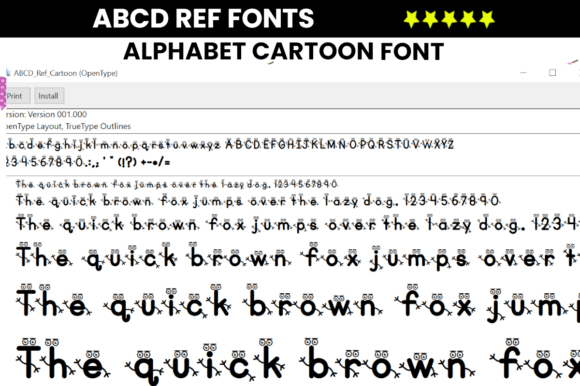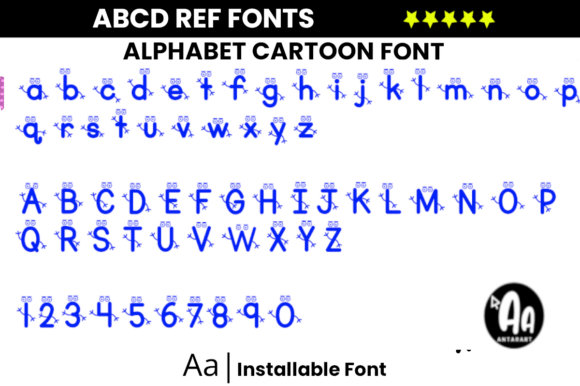
Introducing the Alphabet Cartoon Font: A Fun and Engaging Way to Teach Young Learners
Are you a teacher, designer, or crafter looking for a creative way to bring your alphabet activities to life? Look no further than the Alphabet Cartoon Font! This delightful font features cartoon letters with expressive eyes, playful arms, and cheerful gestures that are sure to capture the attention of young learners. In this article, we’ll explore the many uses of the Alphabet Cartoon Font and how it can enhance your teaching and learning materials.
What is the Alphabet Cartoon Font?
The Alphabet Cartoon Font is a unique and engaging font designed specifically for educational purposes. Each letter of the alphabet is illustrated with a cartoon character, complete with expressive eyes, playful arms, and cheerful gestures. The font is perfect for creating fun and interactive learning materials that will keep young learners engaged and motivated.
Uses for the Alphabet Cartoon Font
The Alphabet Cartoon Font is incredibly versatile and can be used in a variety of educational settings. Here are some ideas to get you started:
- Classroom Posters & Bulletin Boards: Create eye-catching posters and bulletin boards that showcase the alphabet in a fun and engaging way. Use the Alphabet Cartoon Font to highlight key letters and words, and add colorful illustrations to make your display stand out.
- Phonics Activities & Flashcards: Use the Alphabet Cartoon Font to create phonics activities and flashcards that will help young learners develop their reading skills. The font’s playful illustrations will make learning fun and interactive.
- Preschool and Kindergarten Worksheets: Add a touch of whimsy to your preschool and kindergarten worksheets with the Alphabet Cartoon Font. Create engaging activity sheets that feature cartoon letters and characters, and watch your students’ excitement grow.
- Alphabet Games & Early Literacy Centers: Develop alphabet games and early literacy centers that will keep young learners engaged and motivated. Use the Alphabet Cartoon Font to create interactive games, puzzles, and activities that focus on letter recognition and phonics.
- Digital Learning Resources and Presentations: Take your digital learning resources and presentations to the next level with the Alphabet Cartoon Font. Create engaging video tutorials, interactive slides, and multimedia presentations that feature the font’s playful illustrations.
Benefits of Using the Alphabet Cartoon Font
The Alphabet Cartoon Font offers a range of benefits for teachers, designers, and crafters. Here are just a few:
- Engages Young Learners: The font’s playful illustrations and cheerful gestures are designed to capture the attention of young learners and keep them engaged.
- Develops Literacy Skills: The Alphabet Cartoon Font is perfect for teaching letter recognition, phonics, and early literacy skills.
- Encourages Creativity: The font’s unique illustrations inspire creativity and imagination, making it perfect for art projects, writing activities, and more.
Tips for Using the Alphabet Cartoon Font
Here are some tips for getting the most out of the Alphabet Cartoon Font:
- Experiment with Colors: Use a range of colors to bring your creations to life and make them more engaging.
- Add Illustrations: Add your own illustrations and graphics to complement the font’s playful illustrations.
- Mix and Match: Mix and match different letters and characters to create unique and engaging learning materials.
- Get Creative: Don’t be afraid to think outside the box and come up with new and innovative ways to use the Alphabet Cartoon Font.
In conclusion, the Alphabet Cartoon Font is a fun and engaging way to bring your alphabet activities to life. With its playful illustrations, expressive eyes, and cheerful gestures, this font is perfect for teaching young learners and making learning fun. Whether you’re a teacher, designer, or crafter, the Alphabet Cartoon Font is a valuable resource that will inspire creativity, engagement, and learning.